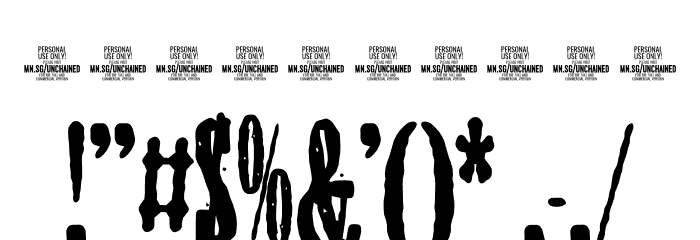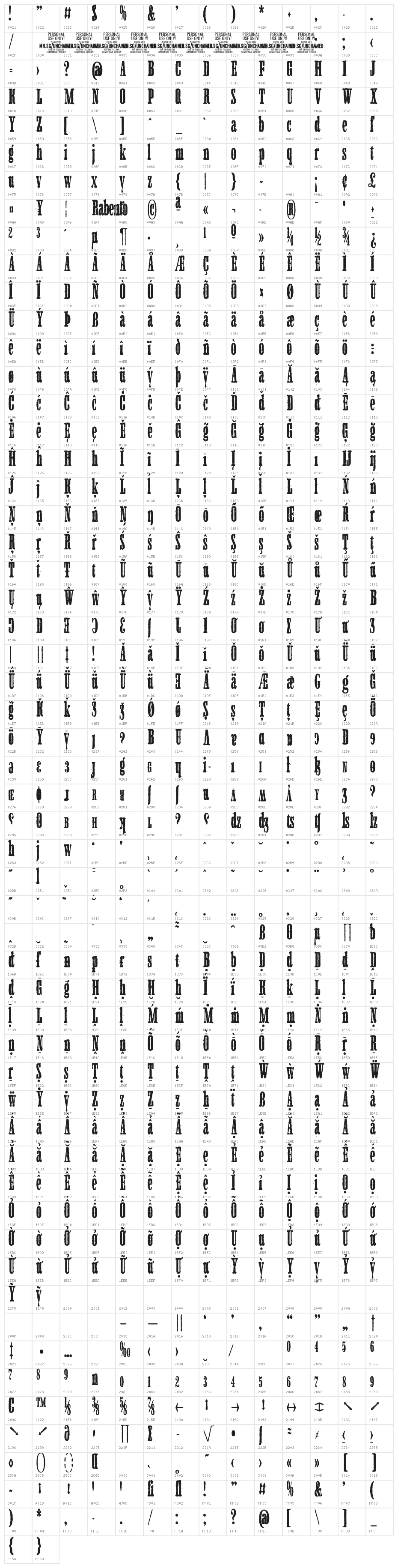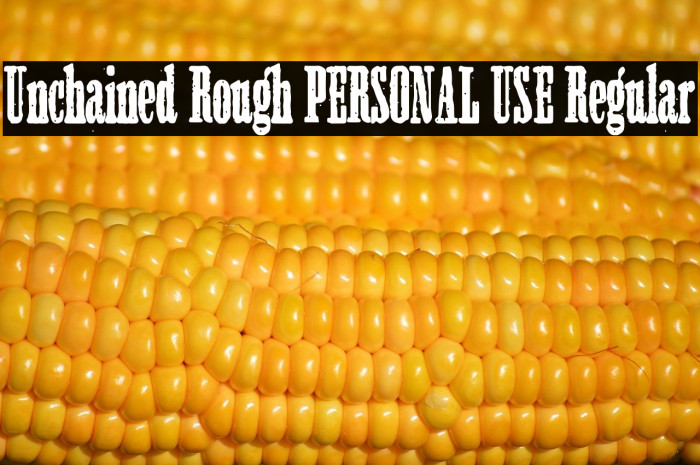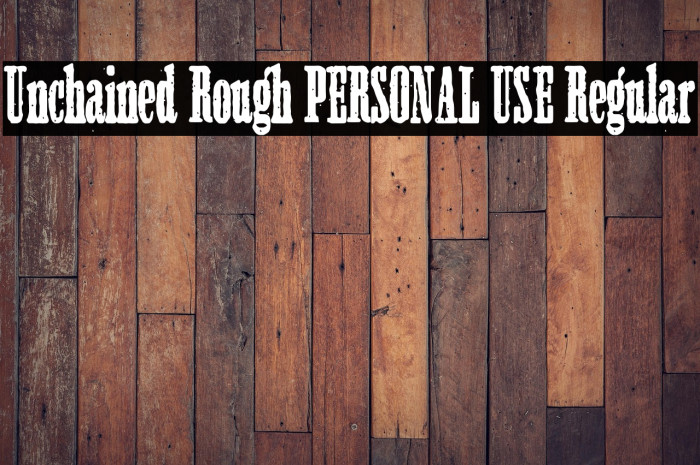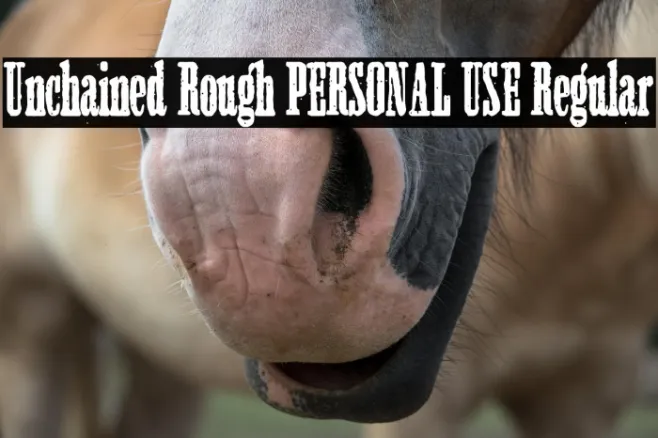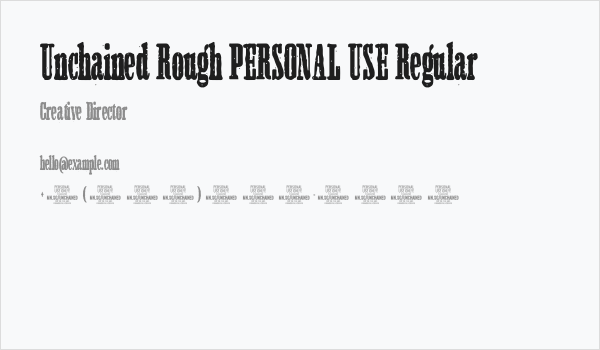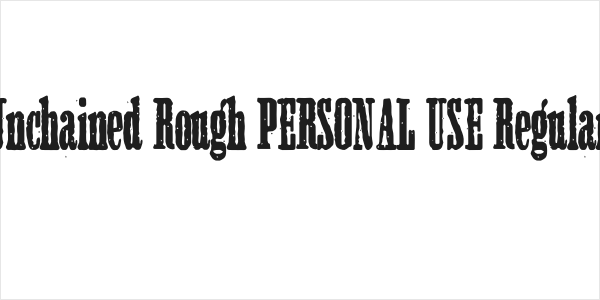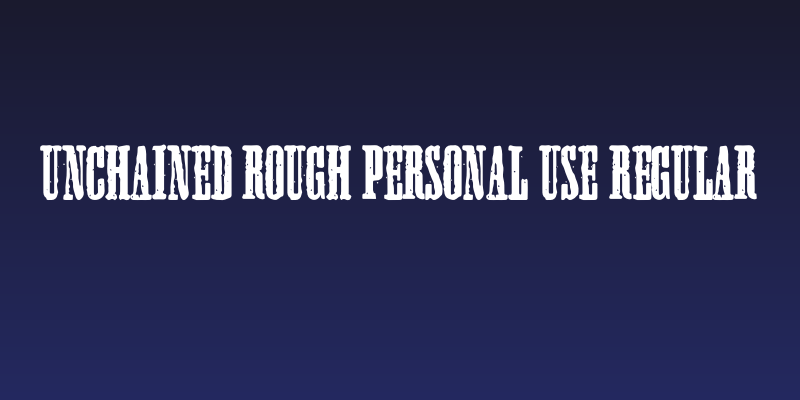
Unchained Rough PERSONAL USE Regular Font
Unchained Rough PERSONAL USE Regular Description
This font features a rugged, distressed appearance that evokes a sense of vintage Americana and the Wild West. The characters are bold and heavily textured, with irregular edges that give them a hand-crafted, weathered look. The uppercase and lowercase letters maintain a consistent style, with a strong emphasis on vertical lines and thick strokes. The numbers and special characters follow the same rough aesthetic, making the font suitable for designs that require a bold, eye-catching statement. Its unique style is perfect for projects that aim to capture a rustic or rebellious spirit.
| Proposed Projects | Ideal for posters, album covers, branding for rustic or vintage-themed businesses, and any design needing a bold, eye-catching typeface. |